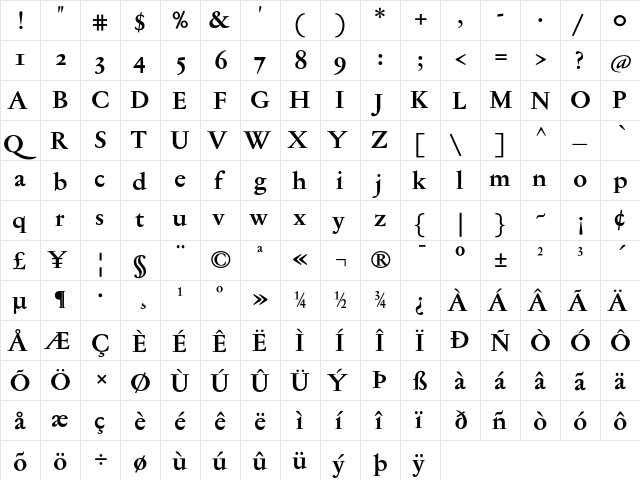
Jannon Text Med OSF Bold Font Preview
Jannon Text Med OSF Bold
Jannon Text Med OSF Bold Font Details
| Foundry | Frantisek Storm, stormtype.com |
Design Context for Jannon Text Med OSF Typeface
Jannon Text Med OSF offers clean, dependable letterforms without strong stylistic allegiance, making it a practical choice for designers who need flexibility. Its bold stroke weight gives it real presence on the page.